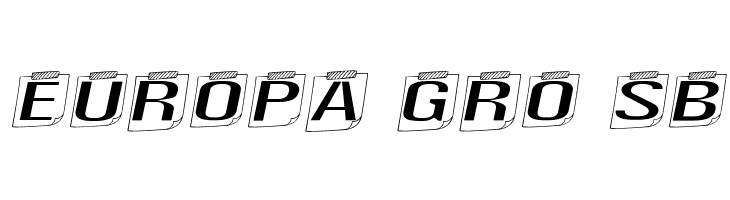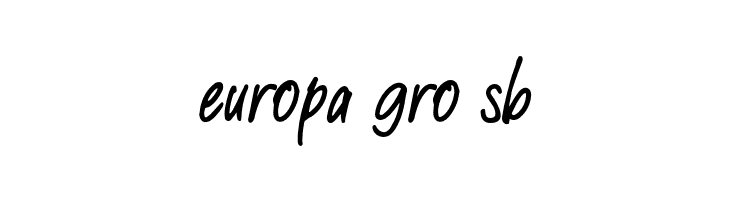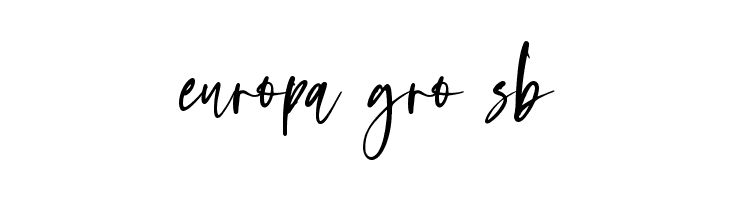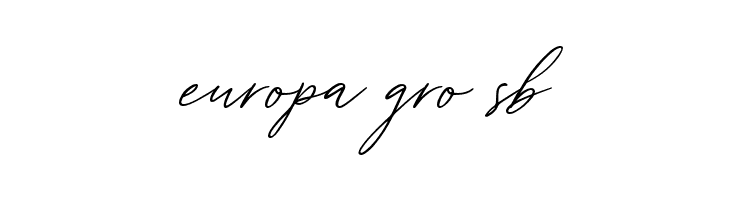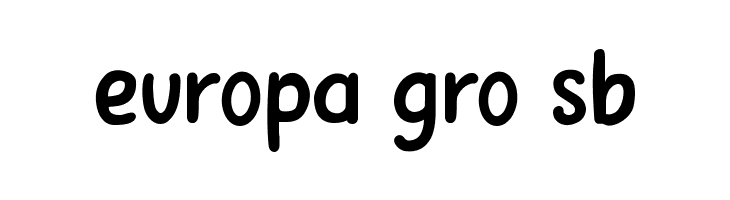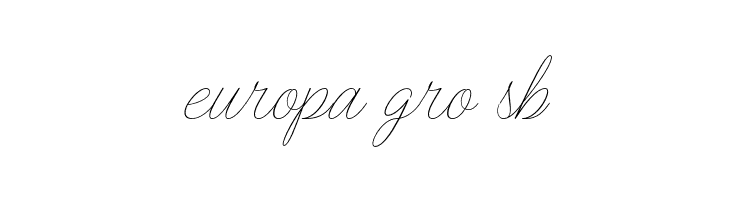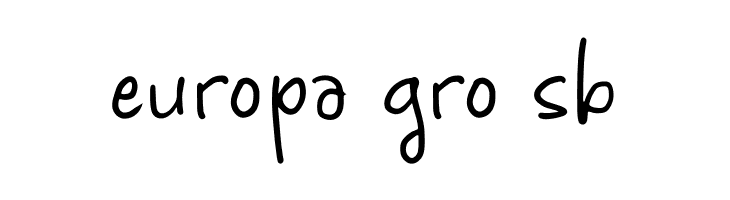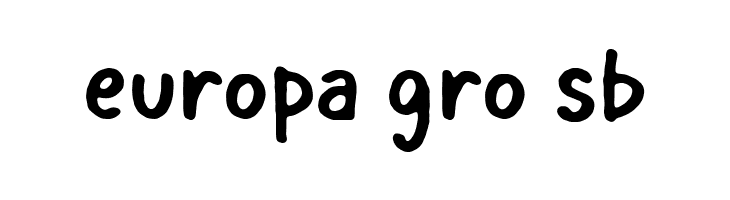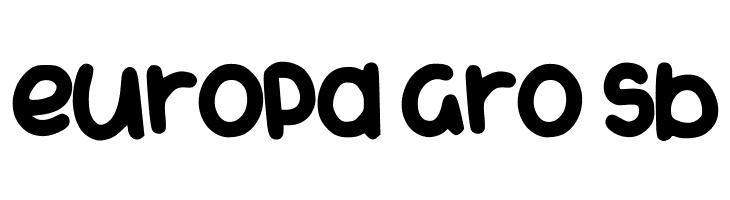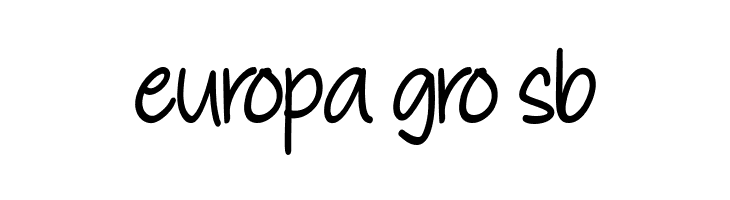
A playful, casual handwritten font with smooth, flowing letterforms.
A dynamic and expressive handwritten font with fluid strokes and playful curves.
A lively, handwritten-style font with dynamic, fluid strokes.
A bold, playful handwritten font with rounded letterforms.
A lively, handwritten font with bold, cursive strokes.
A casual, handwritten font with a personal and informal style.
A bold, italic handwritten font with a casual and friendly style.
A playful handwritten font with smooth, flowing lines and a casual style.
A fluid and elegant script font with smooth, connected letterforms.
A playful, hand-drawn font with bold, rounded characters and diagonal hatching.
A playful, bold font with rounded, hand-drawn letterforms.
A casual, handwritten-style font with thin, irregular strokes.
A flowing, cursive script font with elegant, interconnected letters.
A bold, blocky font with irregular, jagged edges for a playful look.
A playful, hand-drawn font with bold, rounded characters.
A playful, rounded font with a friendly and approachable style.
A whimsical, cursive script font with elegant, flowing strokes.
A playful, rounded font with smooth curves and consistent stroke width.
A playful, hand-drawn font with characters in irregular squares, perfect for fun and creative projects.
A raw, expressive handwritten font with varying stroke thickness and irregular shapes.
A smooth, cursive handwritten font with elegant, flowing characters.
A bold, playful font with rounded edges and a friendly appearance.
A playful, hand-drawn font with a sketch-like, textured appearance.
A playful, handwritten font with rounded edges and a casual style.
A bold, rounded, and playful font with a hand-drawn feel.
A bold, hand-drawn font with a playful and informal style.
A playful, casual handwritten font with a friendly and approachable style.
A playful handwritten font with a casual and friendly style.
A casual, handwritten font with a thin, consistent stroke and informal style.
A playful, casual handwritten font with smooth, flowing strokes.
A playful, bold handwritten font with an informal and friendly style.
A playful, handwritten font with rounded, smooth letterforms.
A playful, handwritten-style font with rounded, consistent strokes.
Elegant cursive font with a fluid, handwritten style.
A playful, handwritten font with smooth curves and a casual style.